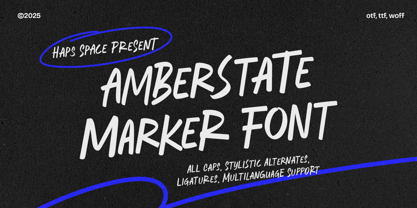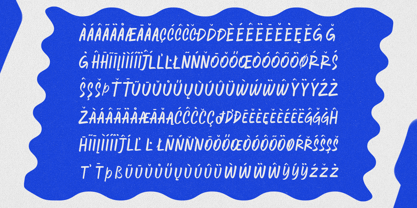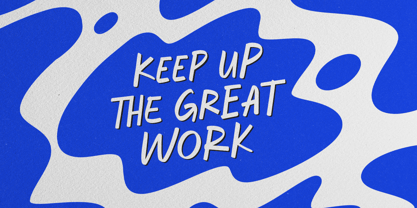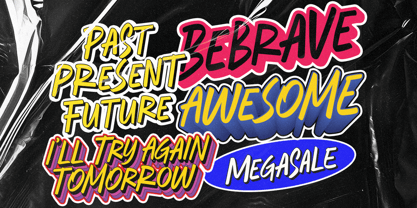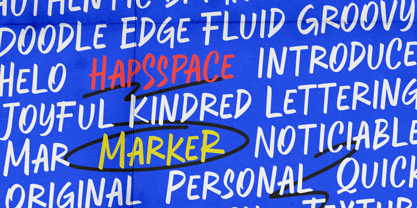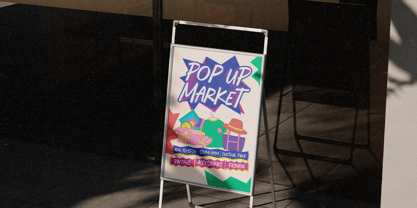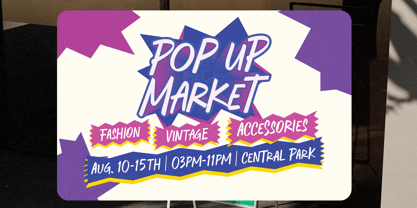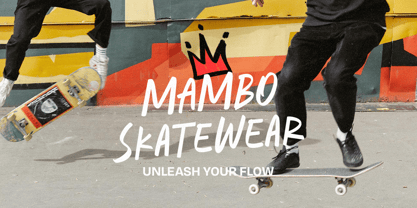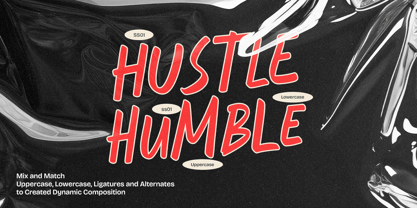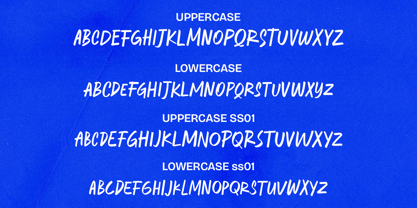
Amberstate Marker
von Haps Space
Die Schriftfamilie Amberstate Marker wurde von Haris Purnama Putra, Egi Ahmad Mufid entworfen und von Haps Space veröffentlicht. Amberstate Marker enthält 1 Stile.
Amberstate Marker Font is a dynamic, display typeface presented by Haps Space. It is characterized by its bold, expressive, and authentic brush or marker script style, mimicking genuine, rapid handwriting. This font is primarily designed for impactful headlines, titling, and branding where a strong, personal, and energetic visual statement is desired. Its aesthetic leans towards a casual yet confident grunge or urban sensibility. What’s included: Full multilingual character set OpenType features such as ligatures and alternates Compatible with Adobe Illustrator, Photoshop, InDesign, and Microsoft Word PUA encoded characters – easily accessible without extra design software to use Alternates and Ligatures you need a Program supports OpenType features such as Adobe Illustrator CS, Adobe Photoshop CC, Adobe Indesign and Corel Draw. I really hope you'll get pleasure using Amberstate and it will be perfect addition to your font collection! Contact me with an inbox message If you have any question. Thank you! Happy Creating.